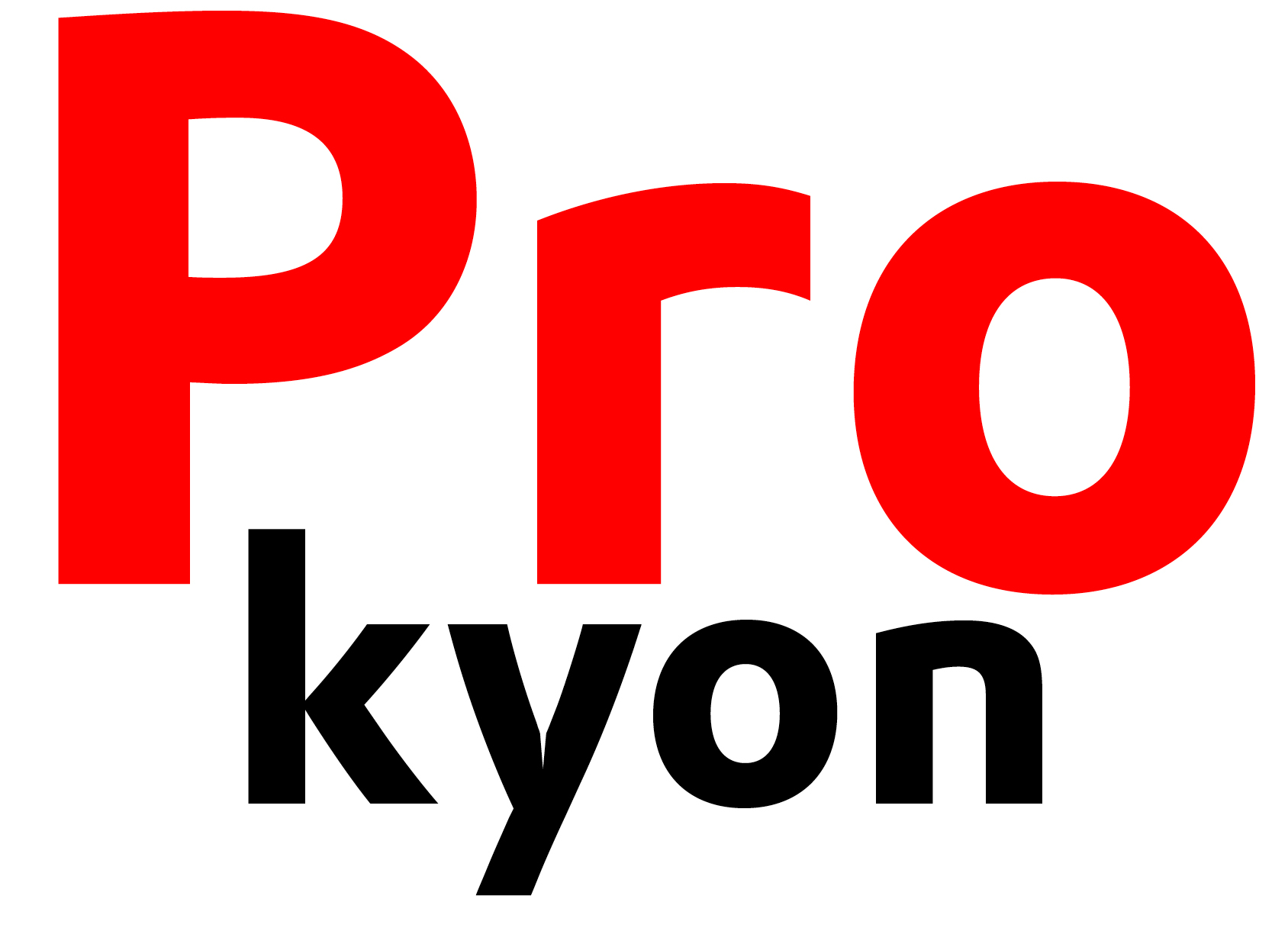
dtl Prokyon is a special sans-serif typeface: the shapes of the letters have been reduced to their essence. Erhard Kaiser has cut away parts of the letters with surgical precision, leaving a solid skeleton. For example, the arches of a number of lowercase letters have been glued directly onto the stems. This simplifies the shapes; parts of the stems no longer protrude. However, this has not been at the expense of the typeface’s image quality and legibility. The interventions have made this sans serif rounder and softer and produce an elegant image. | |||||||||||||||||||
Celestial globe in the Vatican and a detail illustrating the constellation Canis Minor | |||||||||||||||||||
Kaiser has added all kinds of details in dtl Prokyon, such as the delicate curves in the /k and the /v–z. Their equivalents in the capital letters also have these special features. The most striking, however, is the shape of the lowercase /g. This letter alone makes dtl Prokyon extremely recognizable, without becoming a gimmick. dtl Prokyon was named after the most important star in the constellation Canis Minor, or Lesser Dog. There is also a constellation Canis Major, of which Sirius, the brightest star in the firmament, is a part. Canis Major and Canis Minor are in mythology the two dogs of Orion, the hunter, and the constellation Orion is therefore not far away. dtl Prokyon is without a doubt a shining star among the sans serifs. | |||||||||||||||||||